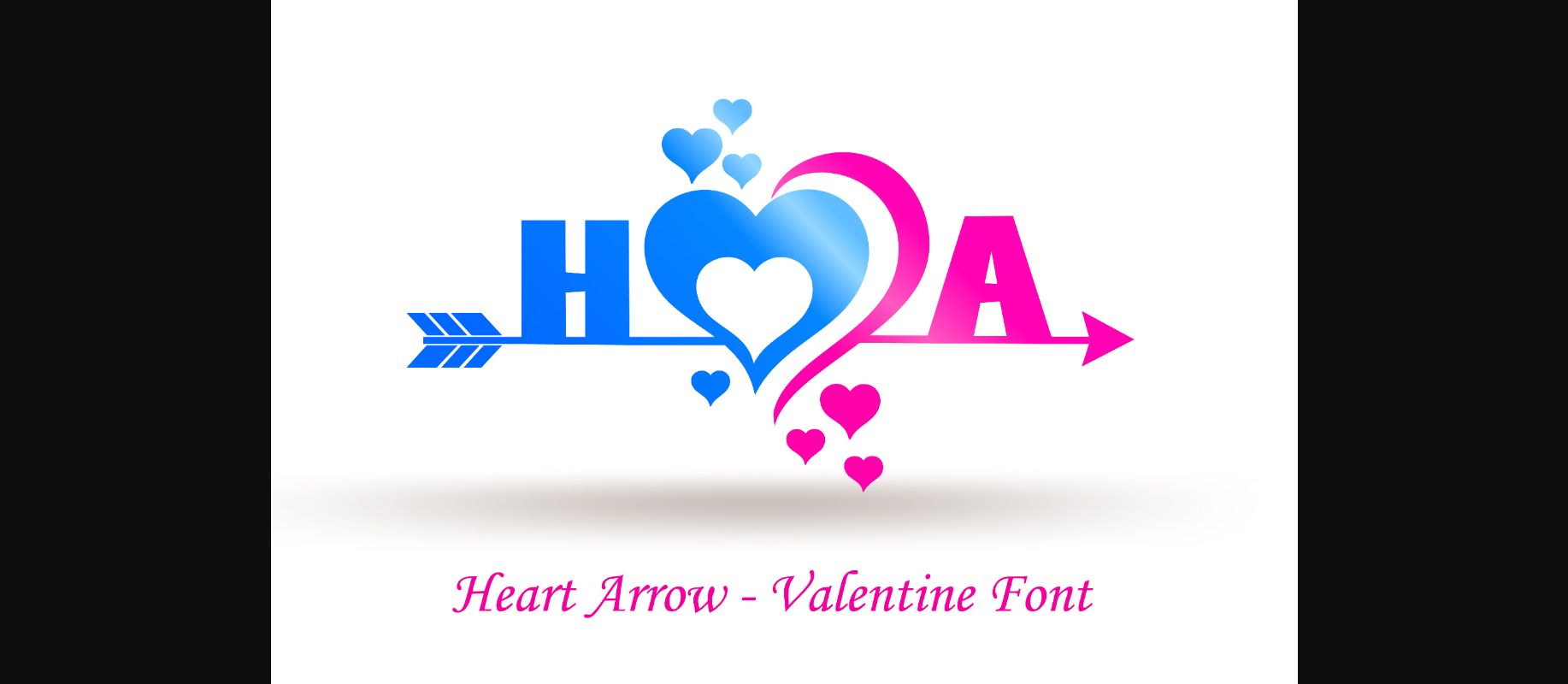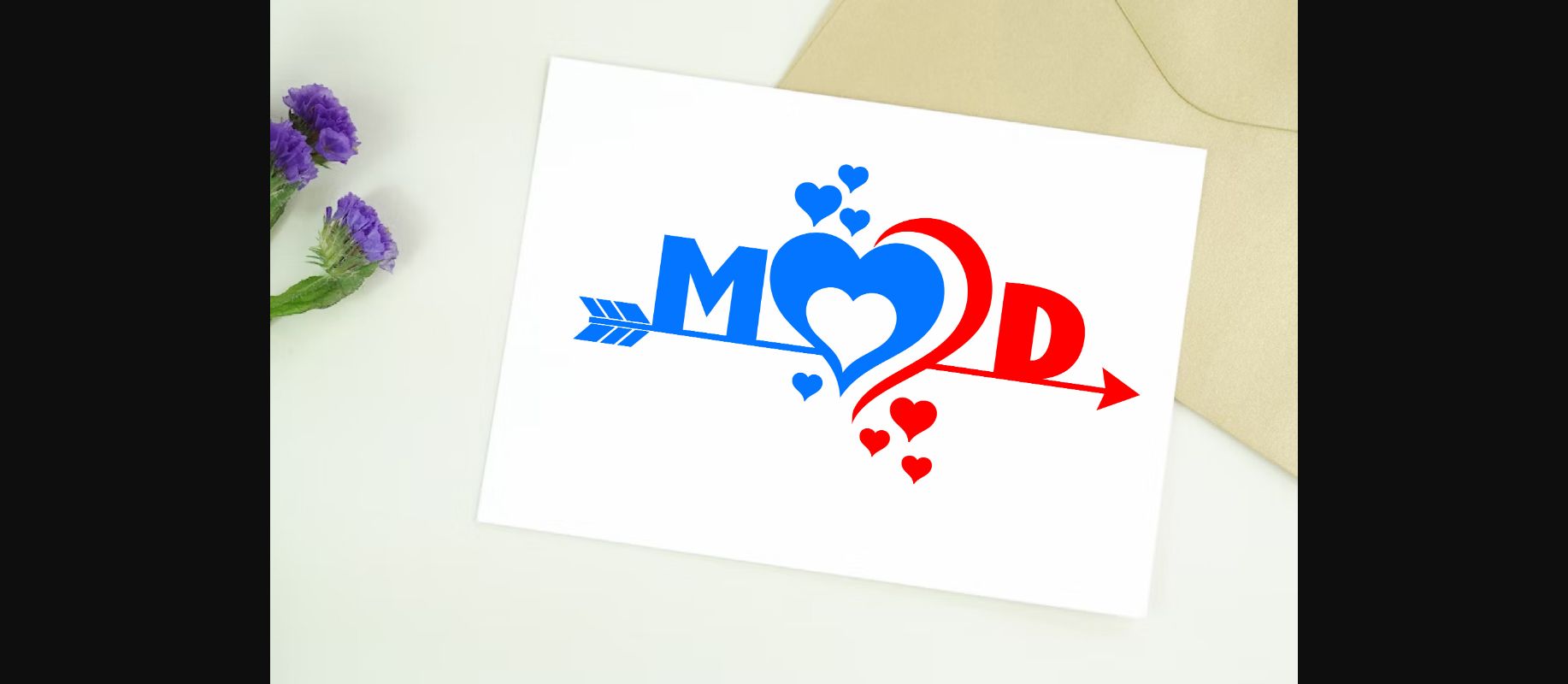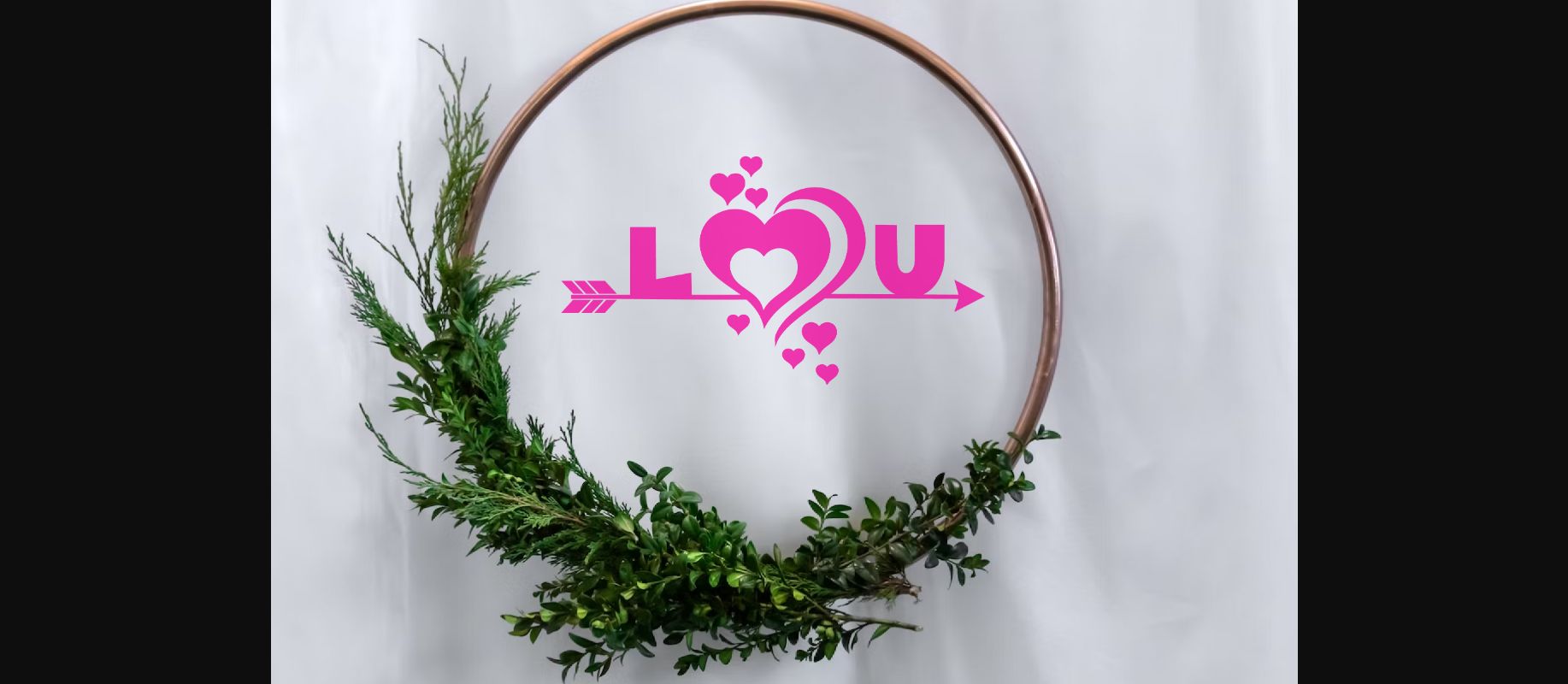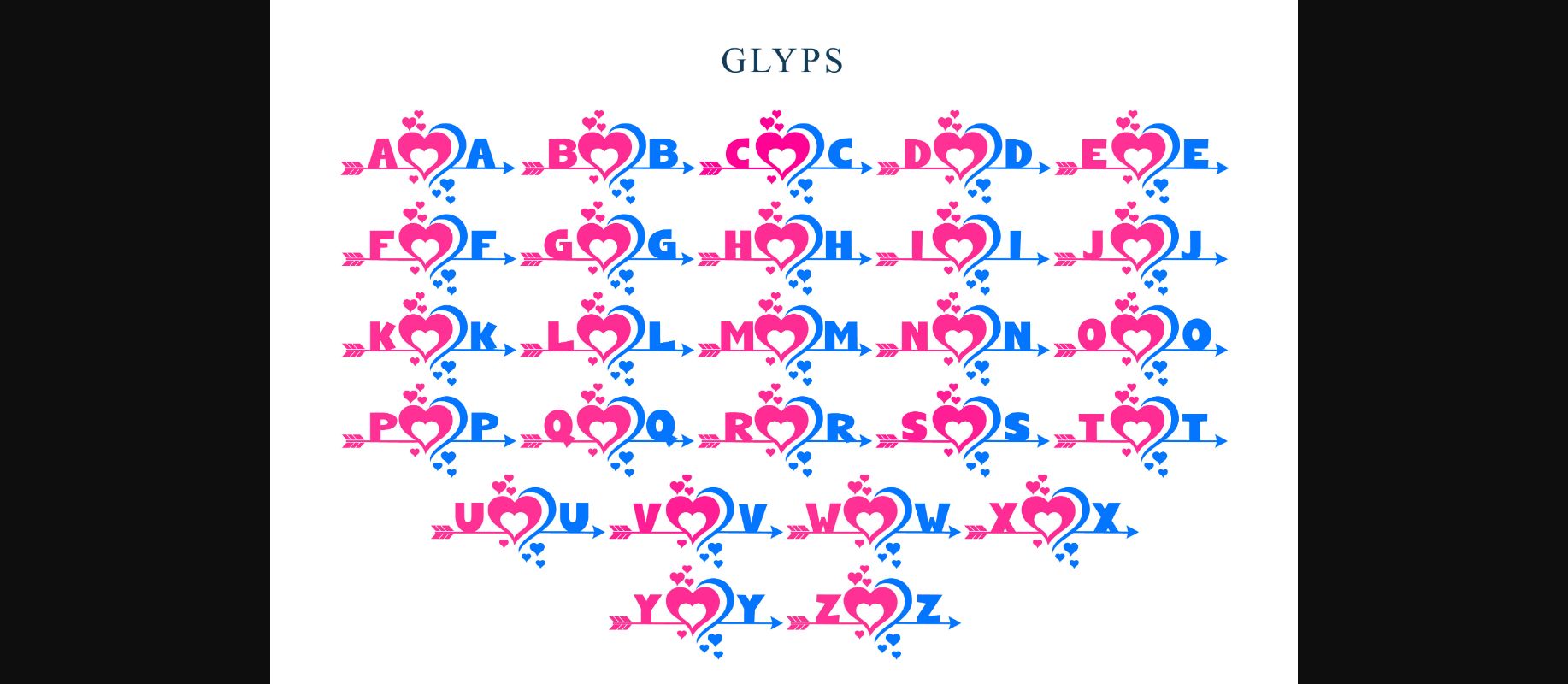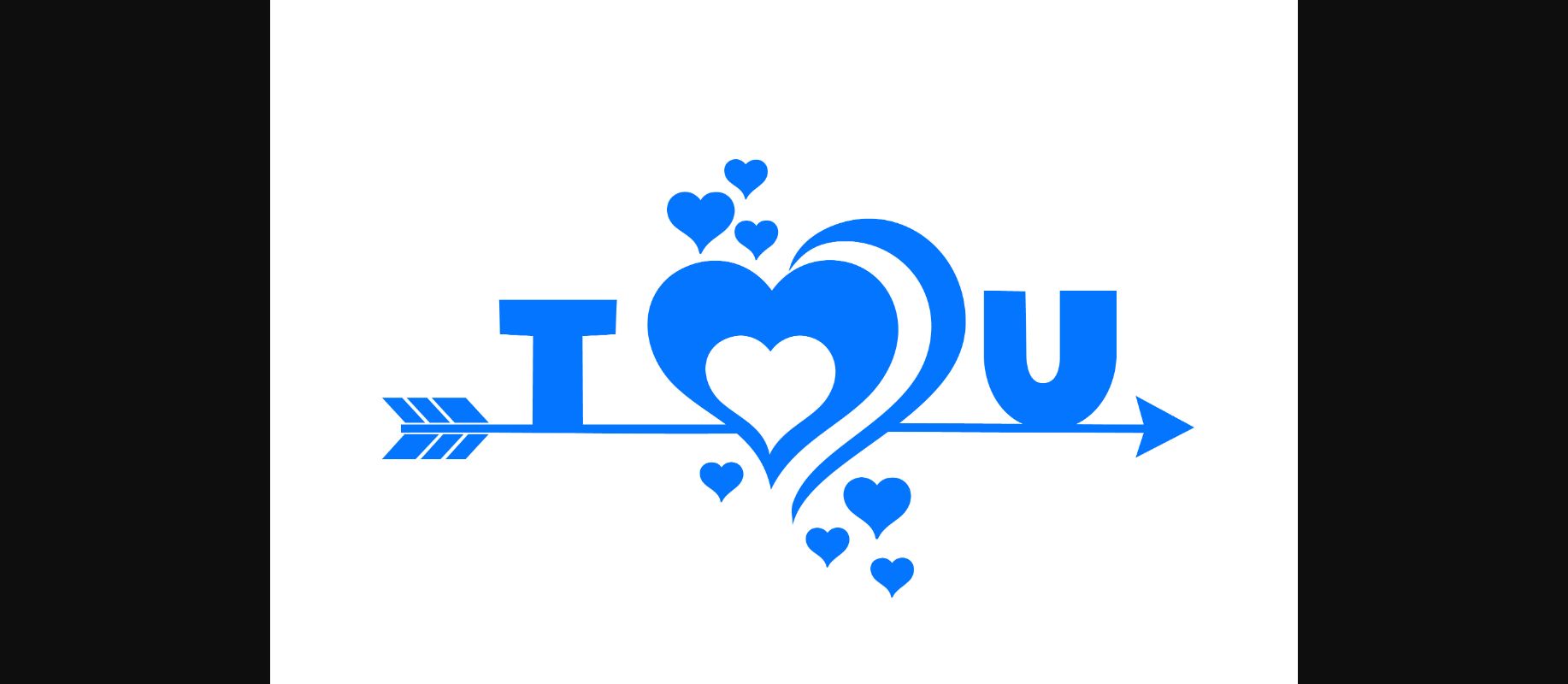
About Heart Arrow Font
Heart Arrow is a unique and fun Valentine’s font. This decorative font is perfect for designing a Valentine’s theme. With user-friendly features, it sparks creativity for captivating and delightful visuals. Let’s unleash creativity to craft stunning designs using this Heart Arrow.